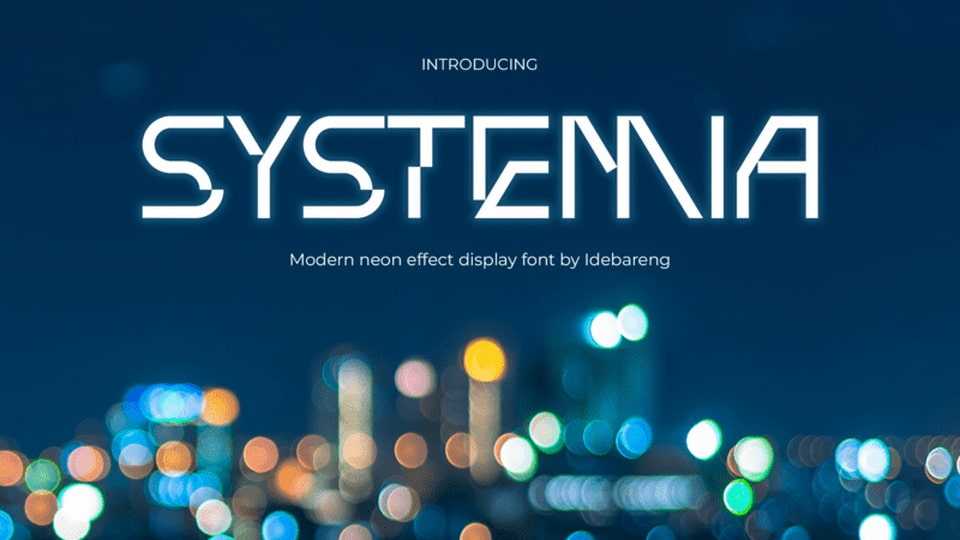
Download Systemia font, the futuristic display typeface that creates a stunning neon effect. This digital font is perfect for film, music, and website designs, making your content stand out.